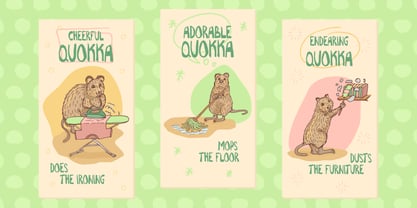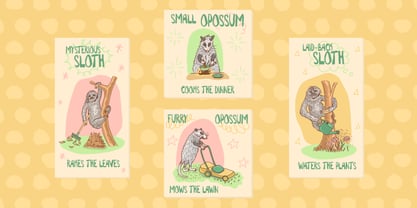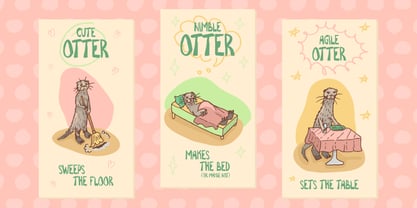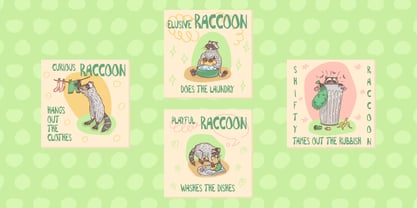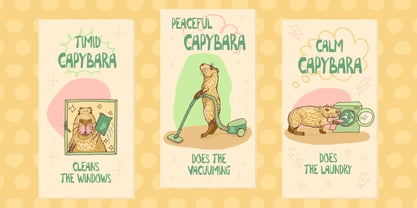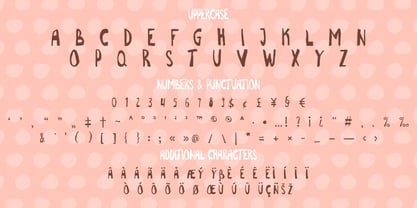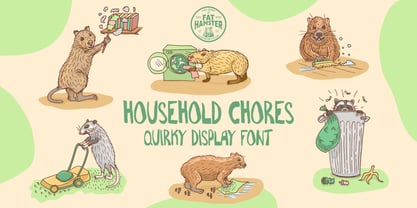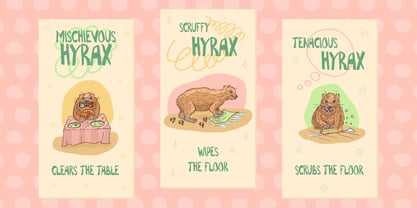
Household Chores
by Fat Hamster
The Household Chores Font Family was designed by Alesia Kutsian, Aliaksei Hvozdzeu and published by Fat Hamster. Household Chores contains 1 styles.
"Household Chores" sketchy and quirky display font
"Household Chores" playful and quirky, marker-style handwritten font, perfect for creating engaging cards or educational materials. This fun font exudes a playful, informal vibe. Its uneven lines and spontaneous strokes mimic handwritten notes and doodles, making it perfect for adding a fun, rebellious touch to posters, labels, or branding related to everyday tasks with a twist of personality.
Designers: Alesia Kutsian, Aliaksei Hvozdzeu
Publisher: Fat Hamster
Foundry: Fat Hamster
Design Owner: Fat Hamster